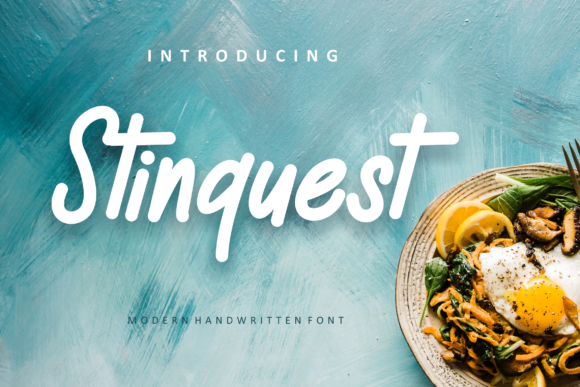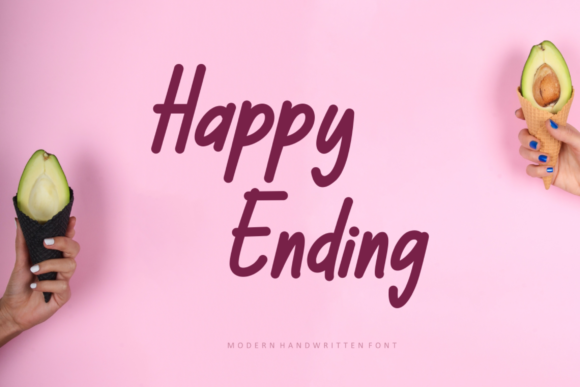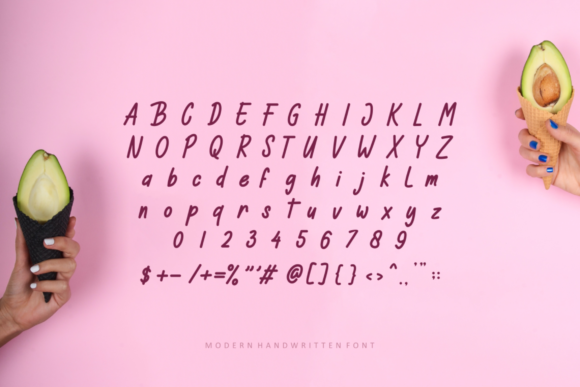
Stinquest Font
About Stinquest Font
Introducing Stinquest, a vintage script font meticulously crafted to exude elegance and sophistication. Whether you’re seeking fonts to elevate your Instagram posts or calligraphy scripts for your DIY endeavors, Stinquest possesses the transformative power to elevate any creative concept into a bona fide work of art.
Stinquest font encapsulates a timeless charm, blending classic aesthetics with a contemporary flair, making it ideal for a myriad of design projects. Its graceful curves and intricate details lend a sense of refinement to any text, while its versatility allows it to seamlessly adapt to various styles and themes.
With Stinquest, your words come to life, adorned with a touch of nostalgia and a hint of modernity, creating a captivating visual experience for your audience. Whether used for branding, invitations, signage, or digital content, this font adds a distinctive allure that sets your creations apart.
Crafted with utmost care, Stinquest ensures legibility without compromising on style, making it suitable for both digital and print media. Its smooth lines and balanced proportions enhance readability, ensuring that your message resonates clearly with your audience.
In conclusion, Stinquest is more than just a font; it’s a versatile tool that empowers you to unleash your creativity and express your unique vision with elegance and sophistication. Whether you’re a seasoned designer or a DIY enthusiast, Stinquest is the perfect companion to bring your creative ideas to fruition and leave a lasting impression on your audience.